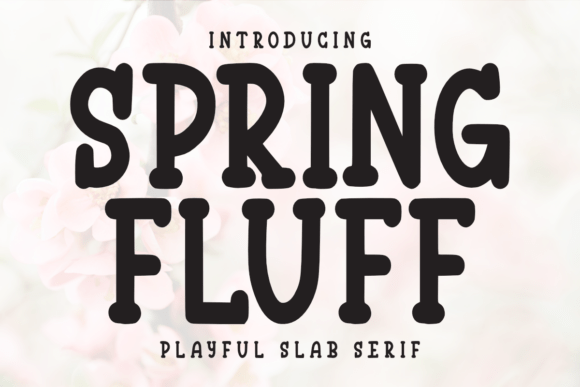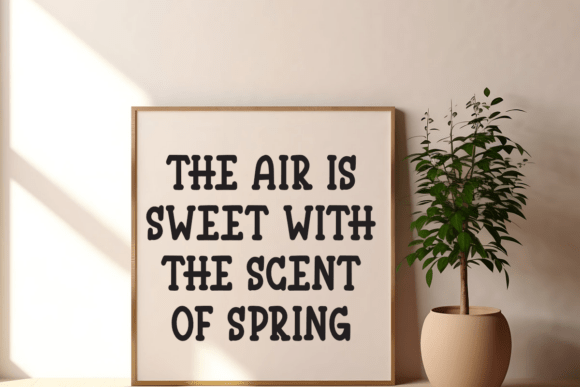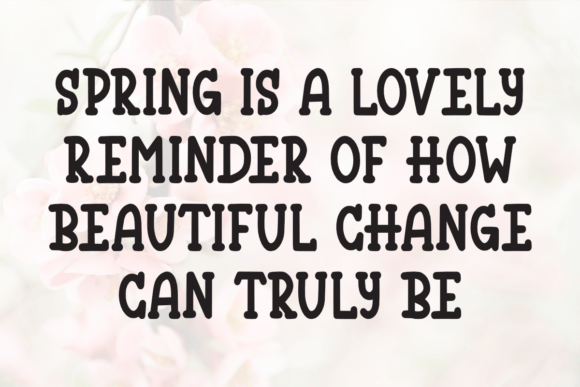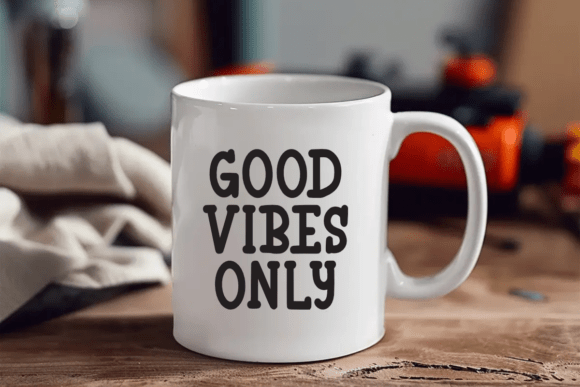
Spring Fluff Font: A Cute Display Font for Cricut & Spring Designs
About the Spring Fluff Font
Add a touch of class to your work with the Spring Fluff Font, a truly exceptional typeface. Spring Fluff is a whimsical slab serif font that radiates lighthearted charm. With its bouncy characters and gentle curves, it’s made for spring-inspired themes, floral branding, children’s projects, and handmade product labels. It’s fun, friendly, and fresh!
Spring Fluff Font Usage Examples
Spring Fluff Font Example